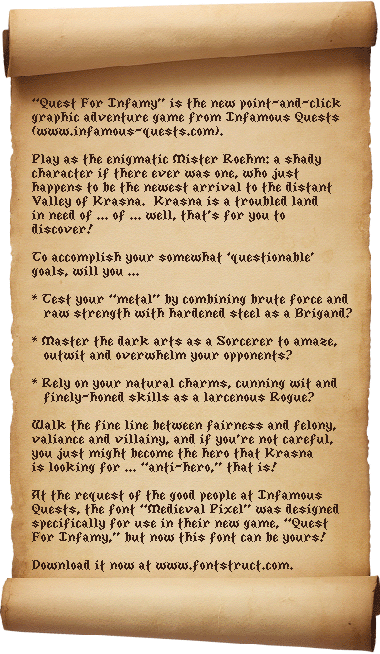
• A medieval pixel font created for use in the graphic adventure game "Quest For Infamy" by Infamous Quests, (C) 2012-2014. Designed for fantasy / RPG-style video games. Uppercase letters inspired by: various German Blackletter, Old English, and Uncial typefaces; "Deutsch Gothic" by James Fordyce; "1454 Gutenberg Bibel" by John H. Schmidt; "Goudy Medieval" by Mentor Type; "Black Castle MF" by Rick W. Mueller; "Two For Juan" by Nick's Fonts; and Exidy's video arcade game "Venture" (1981). Numerals inspired by various Old English and Gothic typefaces.
A really complex and lovely pixel font.
In early April 2012, I was asked to develop an "adventurey" / "medieval" type font for an upcoming game they were developing, which was "Quest For Infamy." While I haven't played the game yet (unfortunately I was too busy to help with the Beta testing), from the trailers and screenshots, I do know that the typeface is used in certain menus and mini-games. I believe it's also used when reading in-game books and texts as exposition...
Not only that, but I designed the main text font used throughout the game as well as designing the 'faux' copy-protection symbols, just like games from the 1990s would use. :^)
Great work. I like the way you blend different blackletter styles. 10/10
Awesome looking black letter style font. Can't believe I missed this when you originally did it!